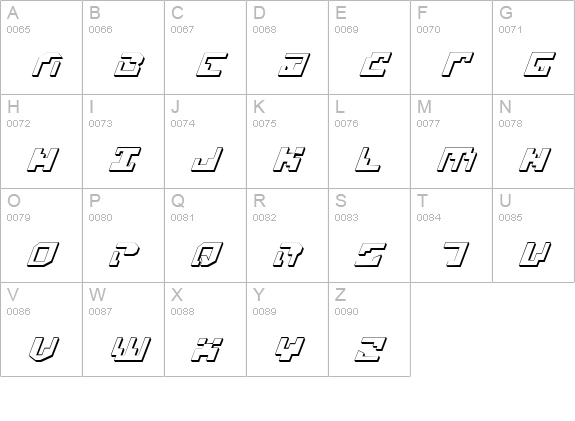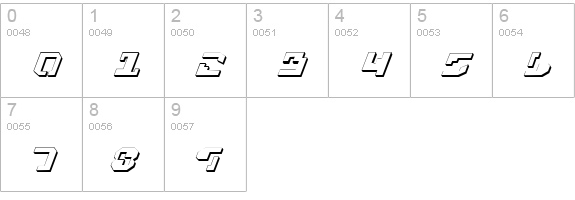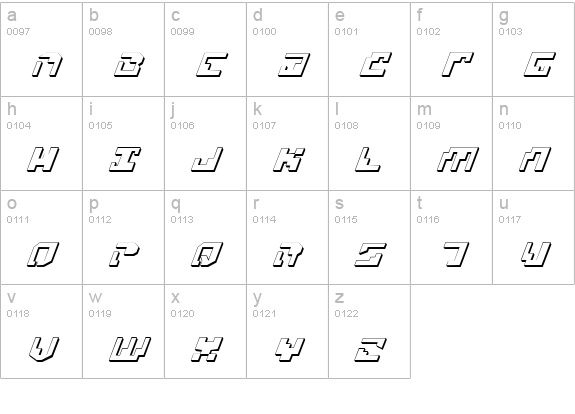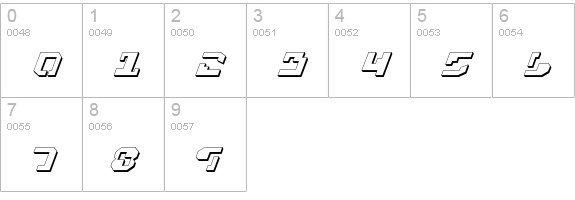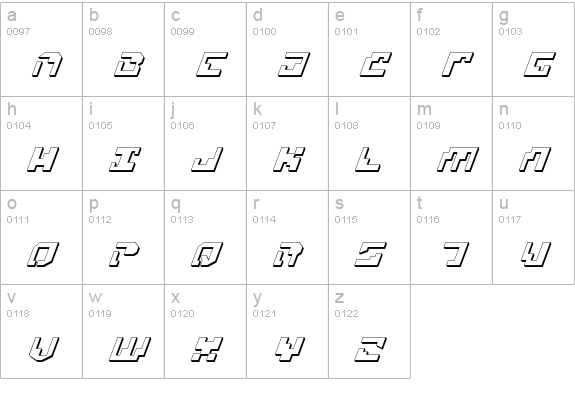
Xenophobia 3D Italic is a distinctive, italic variant in the Xenophobia typeface family \xE2\x80\x94 well suited to design and typography projects.
Xenophobia 3D Italic font is a striking and futuristic typeface that exudes a sense of depth and dimension. Its bold and angular design is sure to make a statement in any project, adding a touch of modernity and edginess. The 3D effect gives the letters a sense of movement, making them pop off the page. The Xenophobia 3D Italic font is perfect for projects that require a strong and bold aesthetic, such as posters, headlines, and branding materials. Its unique design will grab the attention of viewers and leave a lasting impression. Best of all, Xenophobia 3D Italic font is freely available to download at FontsMarket.com. Whether you're a designer looking to add a new font to your collection or a business owner in need of a fresh look for your branding, this font is a fantastic choice. Download it today and see the impact it can make on your projects!